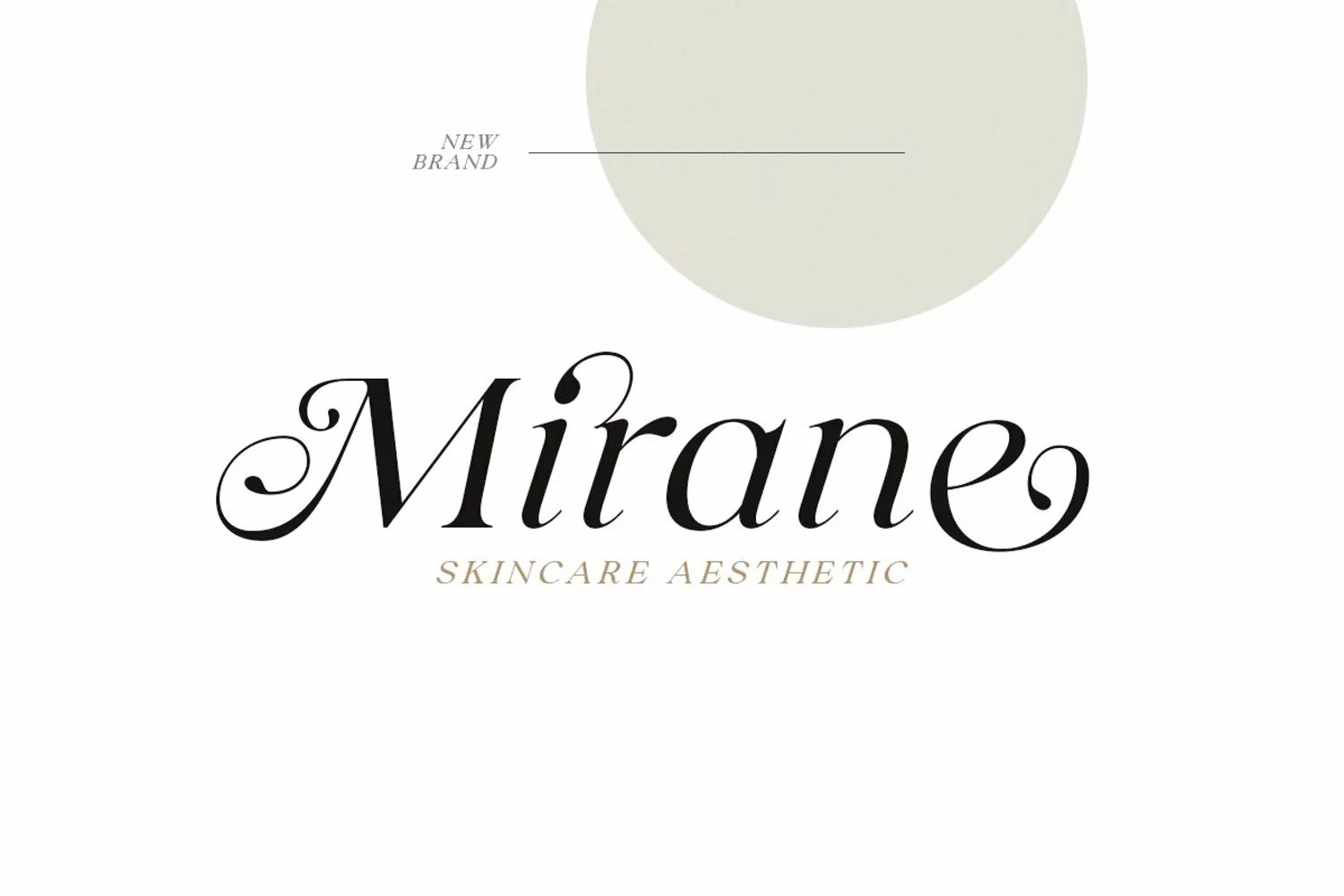
Claire Murphy is a classic and stylish italic serif with a bunch of alternates that will make your presentation or logo even more stunning and elegant. You can use this font for any purpose, such as a wedding invitations, logo, or instagram post. This font also support multilingual and already PUA Encoded.